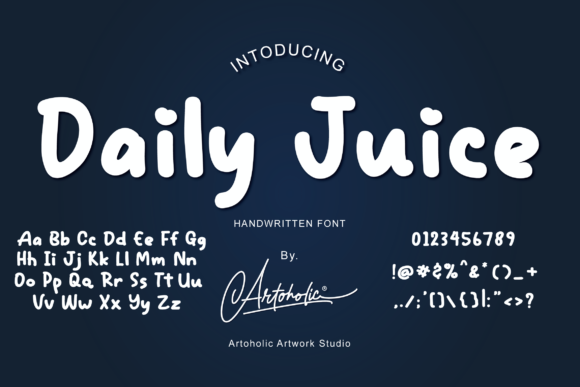
Dive into the world of creativity with Daily Juice Font, a whimsical and captivating paint brushed handwritten font brought to you by the talented ARTOHOLIC STUDIO. Its charming and playful nature makes it the perfect choice to add a touch of delight and personality to your designs.
Daily Juice Font is a versatile chameleon, effortlessly adapting to a wide range of projects. Whether you're crafting eye-catching banners that demand attention or injecting a splash of fun into your social media posts, this font will elevate your creations with its unique aesthetic.
The imaginative minds behind Daily Juice Font have poured their hearts into crafting each stroke and curve, ensuring that it possesses an unmatched allure. Indulge in the delight of designing with this font and let your creativity blossom. Each letter dances across the page, inviting you to embark on a journey of self-expression and artistic freedom.